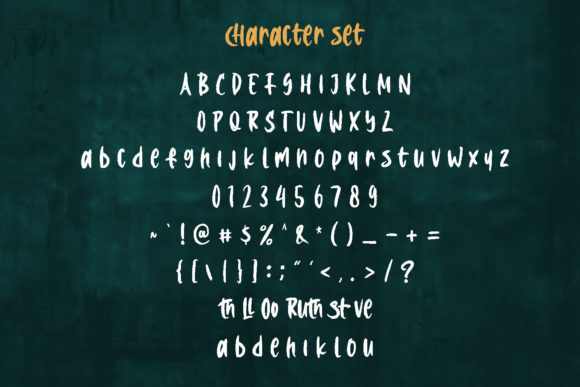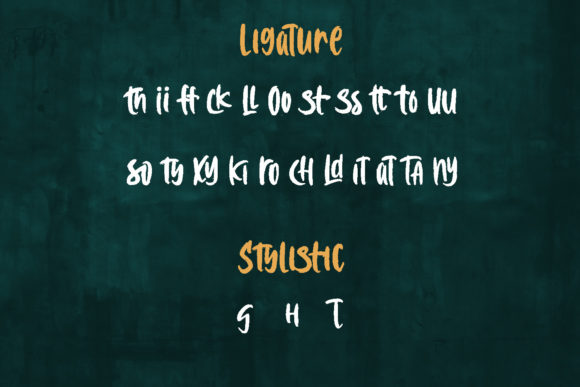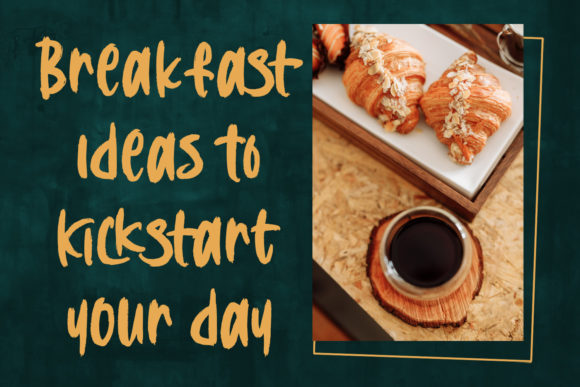
About Croxypraxis Font
“Croxypraxis” isn’t just a font; it’s a manifestation of timeless beauty and elegance in handwritten form. Crafted with care, this font encapsulates a sense of love and timelessness. It becomes the ultimate choice for projects that demand attention, whether it’s eye-catching logos, compelling branding, or impactful quotes. Each letter carries a unique and beautiful touch, infusing your designs with life and character.
The font’s allure lies in its ability to seamlessly blend loveliness and timelessness. Every character is thoughtfully designed to contribute to an aesthetic that not only captures attention but also exudes an air of beauty and sophistication.
As “Croxypraxis” becomes an integral part of your creative endeavors, you’ll witness its transformative capabilities. By incorporating this font into your projects, you’ll observe how it enhances and amplifies your ideas, infusing them with a touch of elegance that resonates deeply.
In essence, “Croxypraxis” transcends being a mere font. It’s a channel of love and timelessness, meticulously designed to enrich visuals with an everlasting touch. With its unique and beautiful letters, this font stands as an invaluable tool for designers aiming to create visuals that evoke emotions, establish connections, and create a lasting impact. With “Croxypraxis,” your designs don’t just communicate; they radiate beauty and timelessness that captivates all who encounter them.